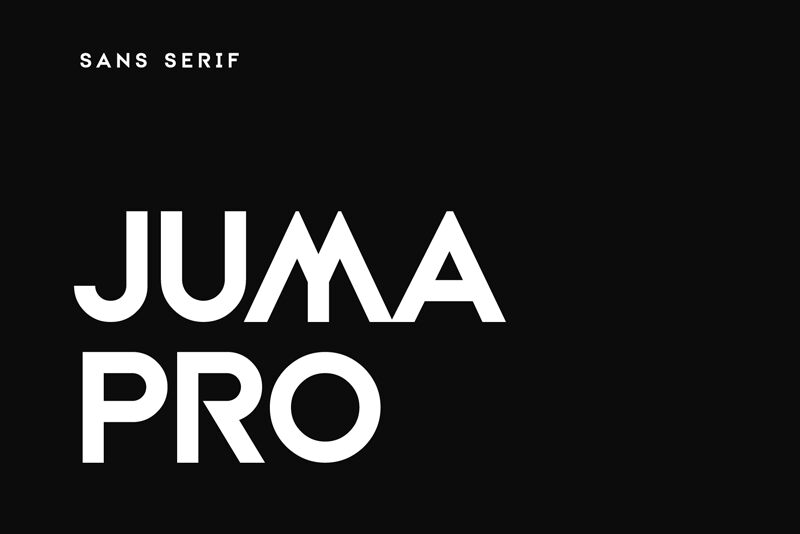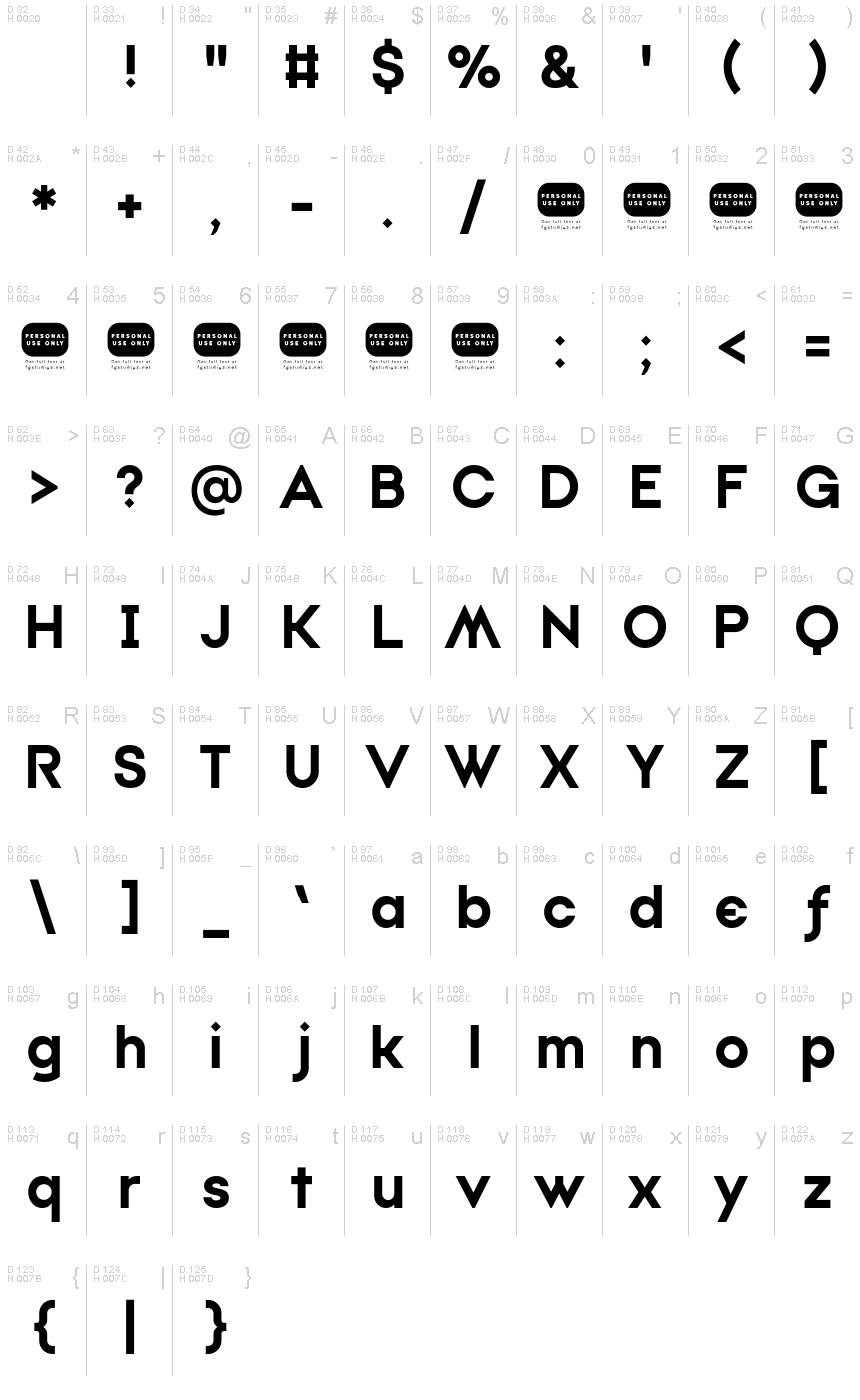
Juma
Juma by FG Studios is a captivating sans-serif font that exudes a sleek, modern elegance. With its clean lines, bold strokes, and harmonious proportions, this typeface commands attention and evokes a sense of sophistication. The distinct angular terminals and the carefully balanced letter forms contribute to its striking visual presence, making it an impactful choice for a wide range of design projects.
Juma's versatility shines through its ability to adapt seamlessly across various applications, from editorial layouts and branding materials to digital interfaces and packaging designs. Its strong, confident personality lends itself well to headline usage, while its exceptional legibility and readability make it a suitable option for body text. Designers seeking a font that strikes the perfect balance between form and function will find Juma to be a compelling and versatile addition to their typographic toolkit.